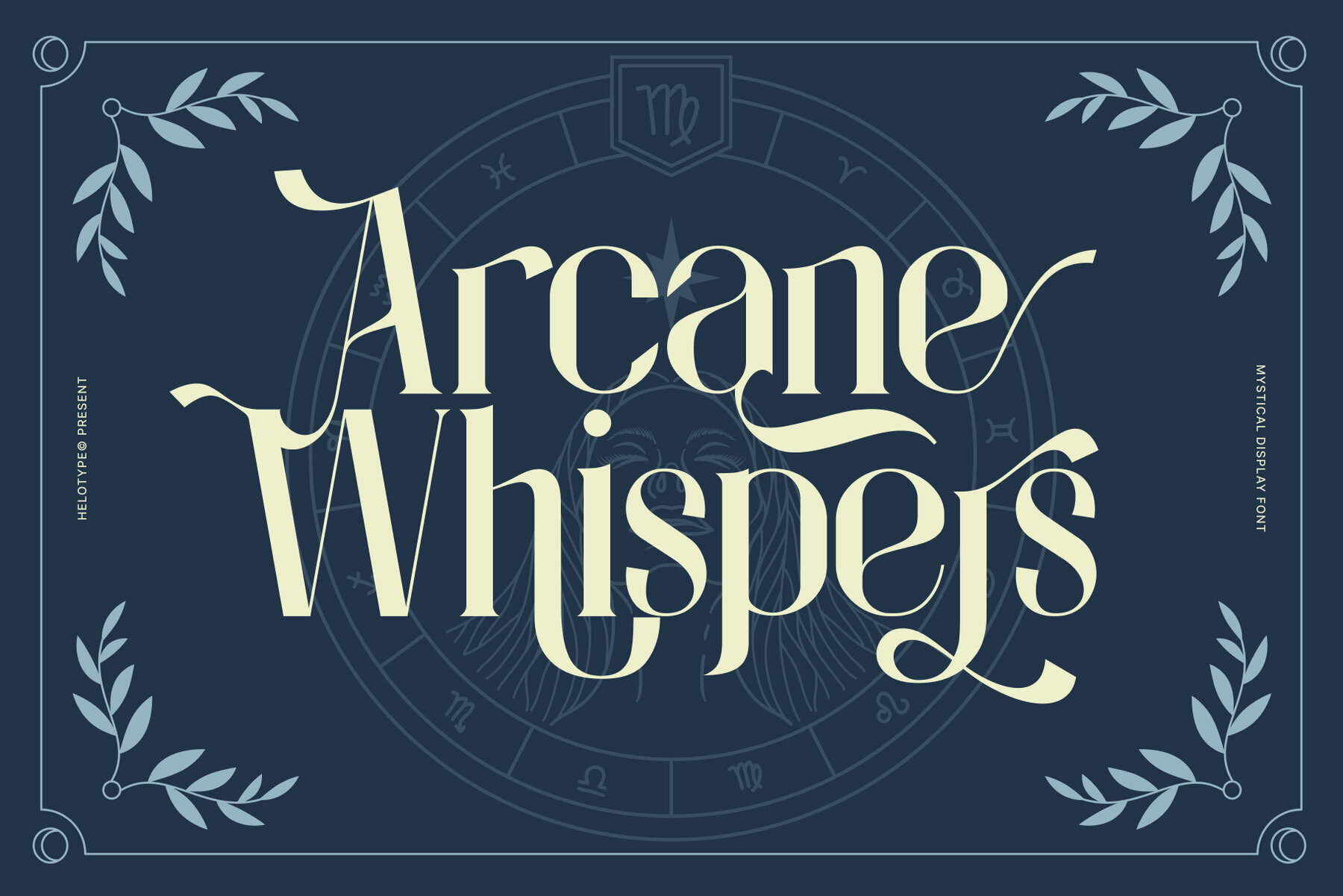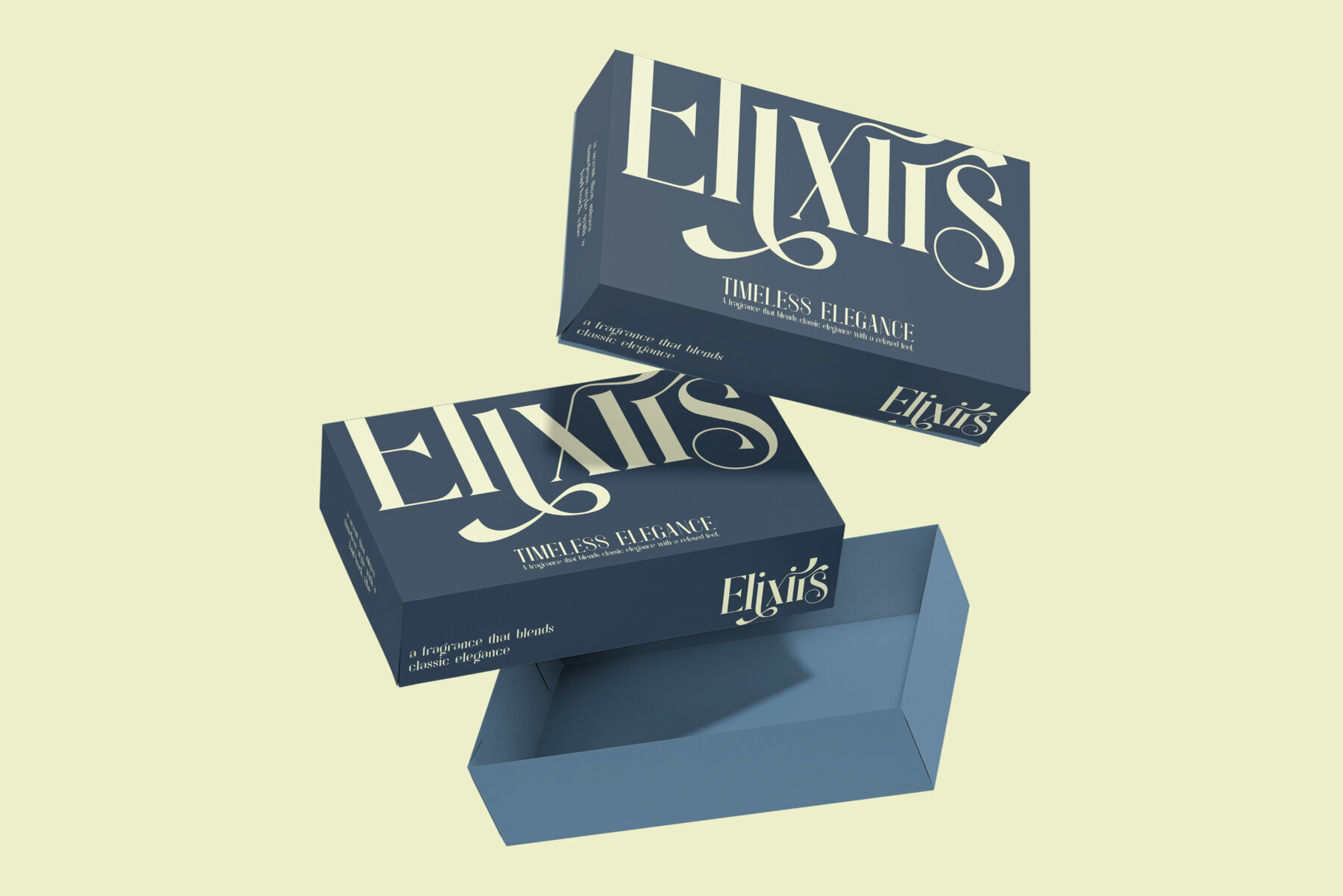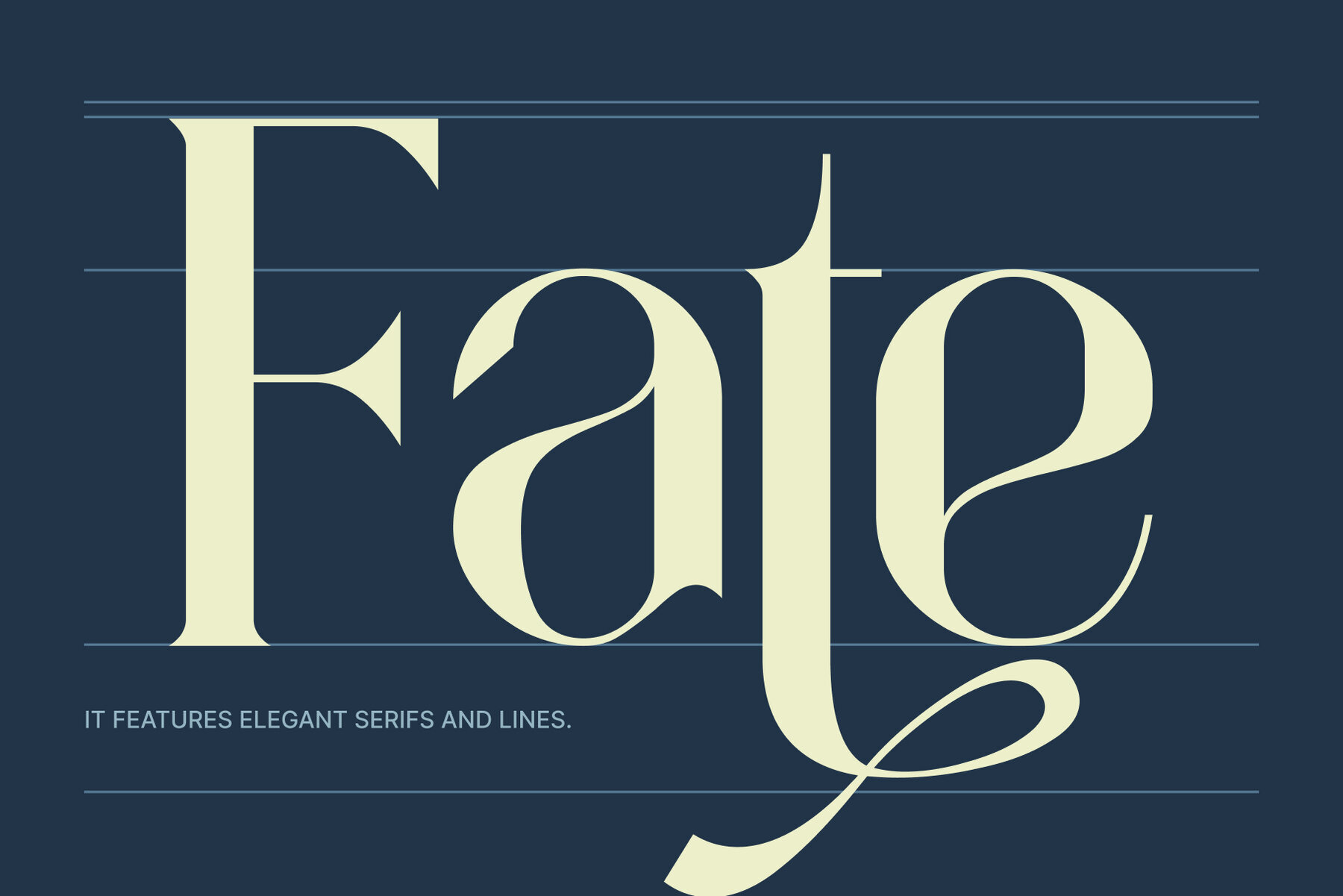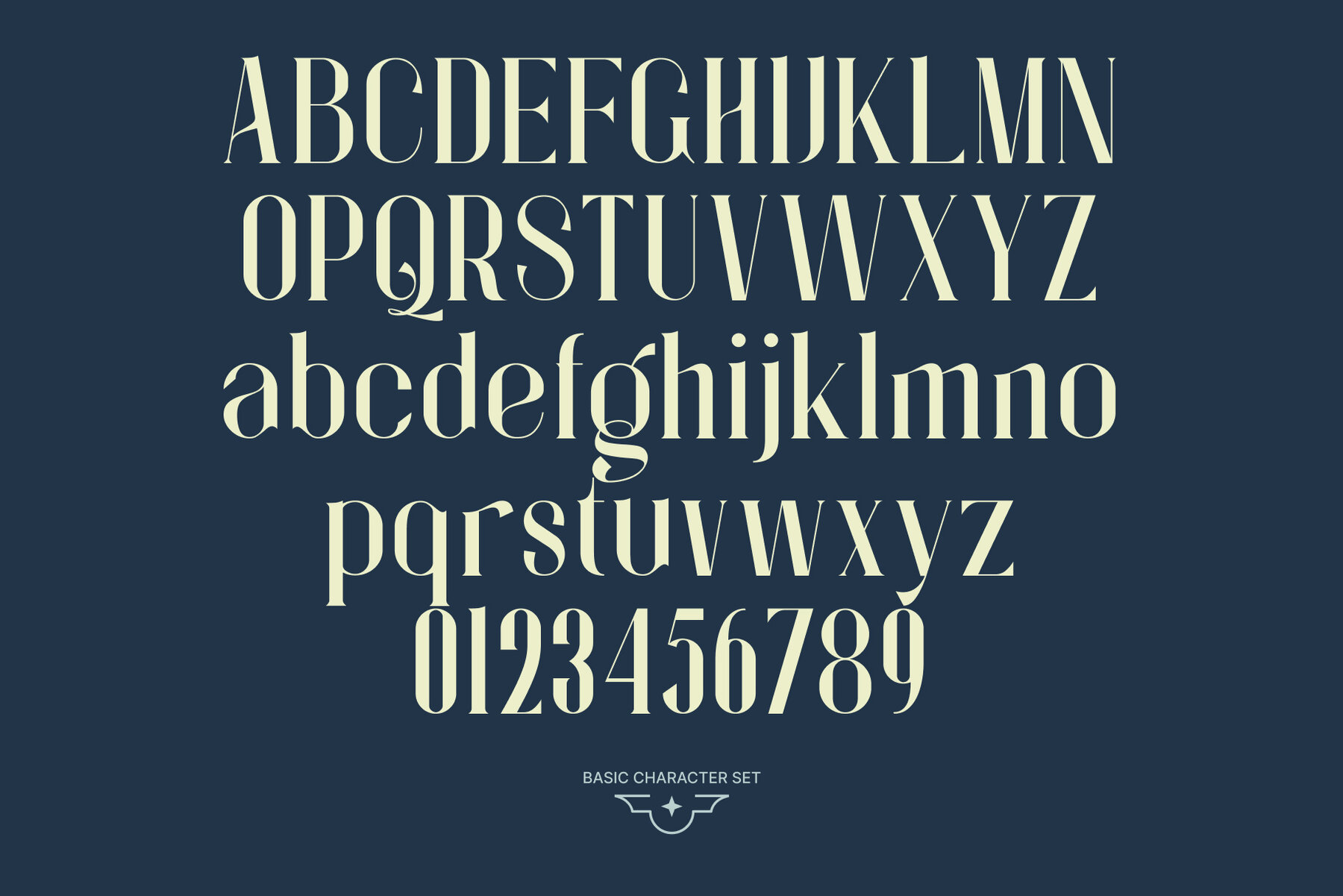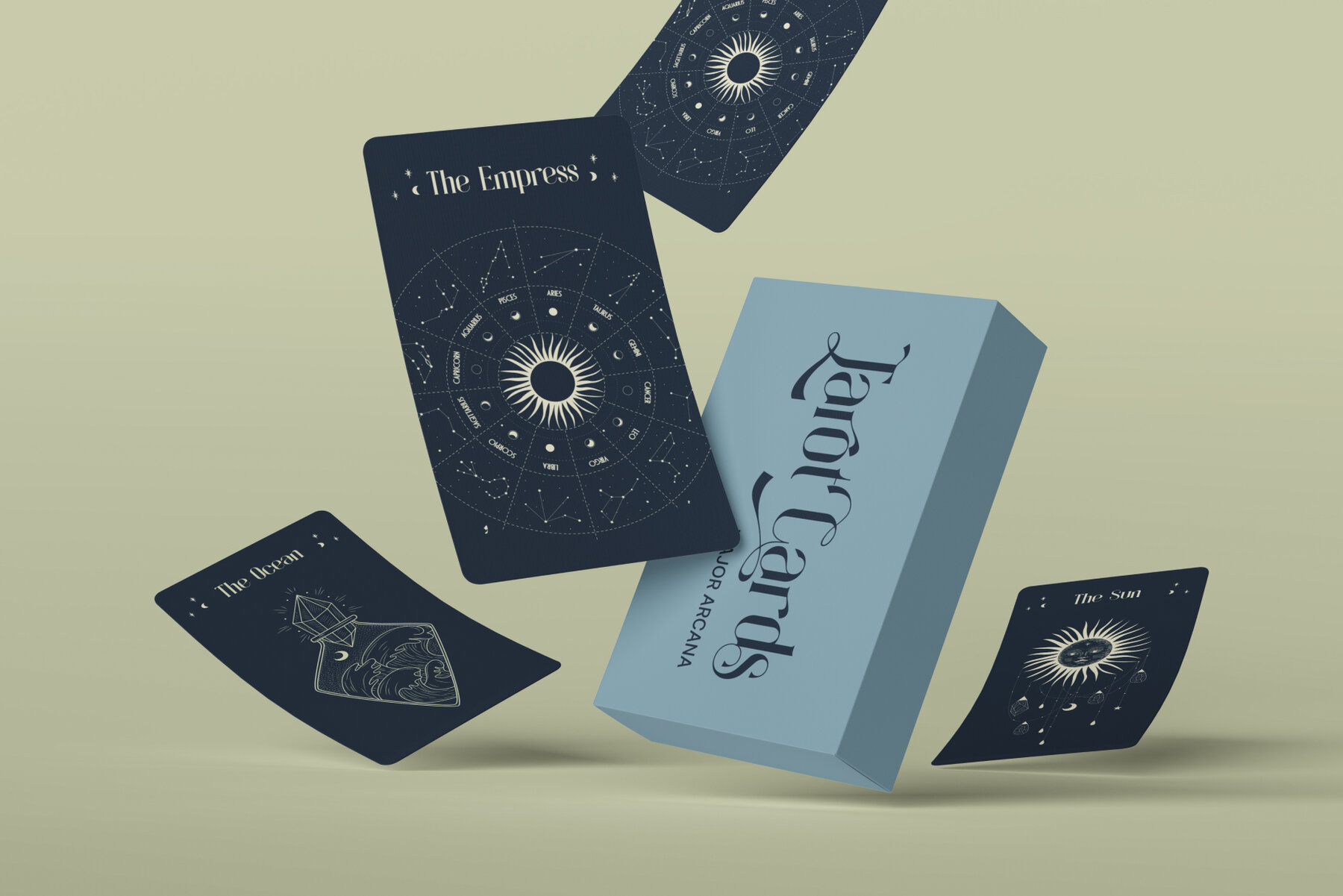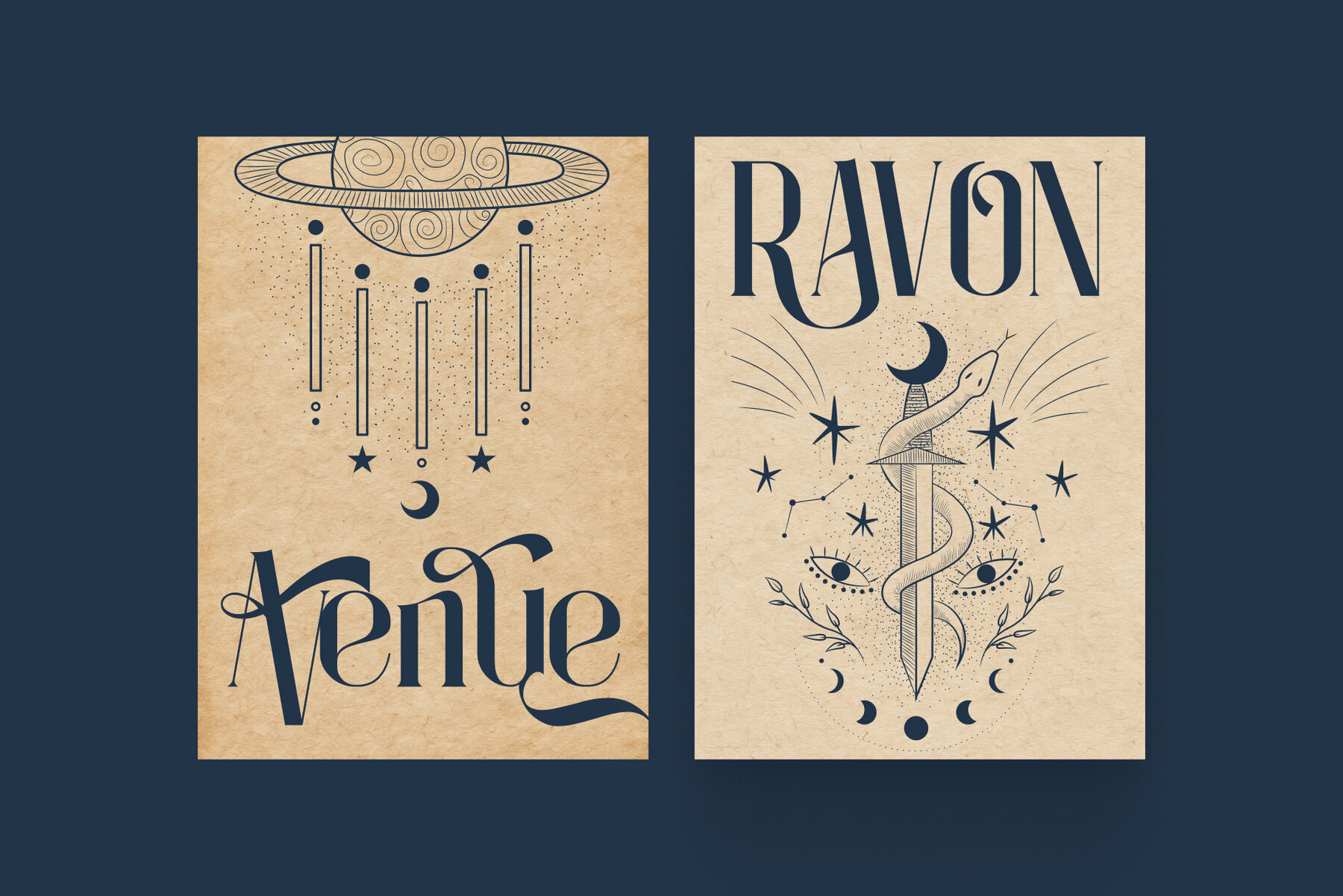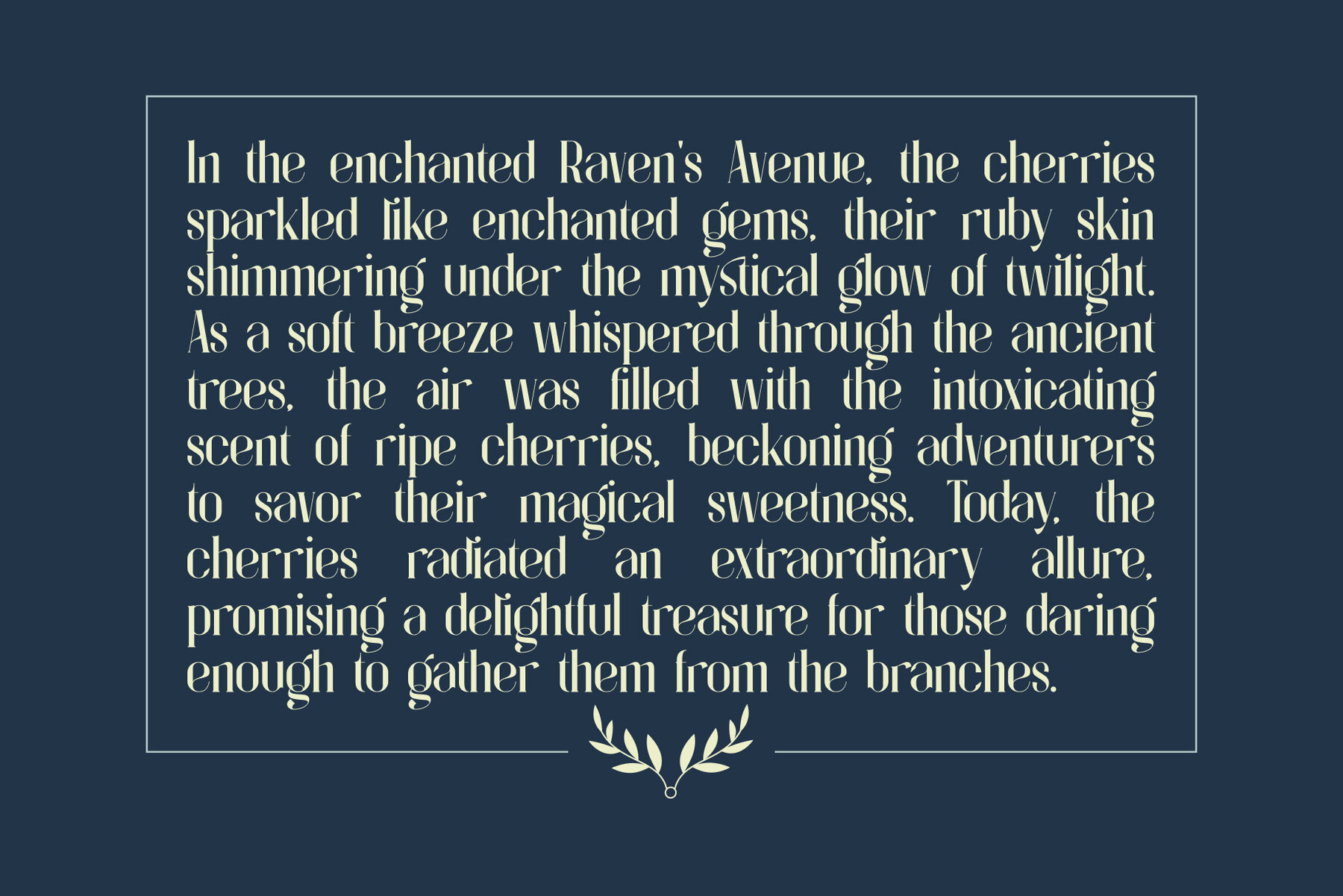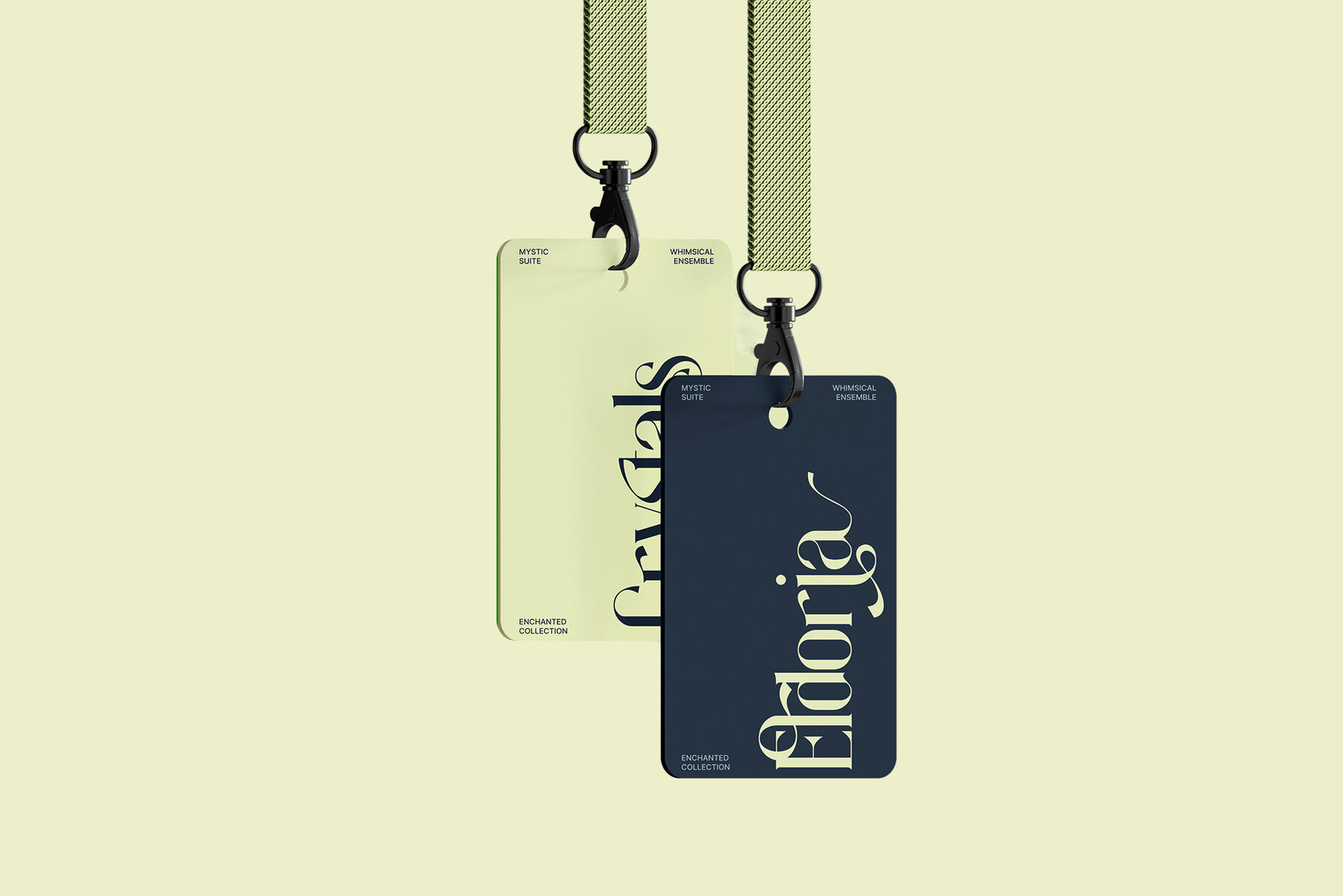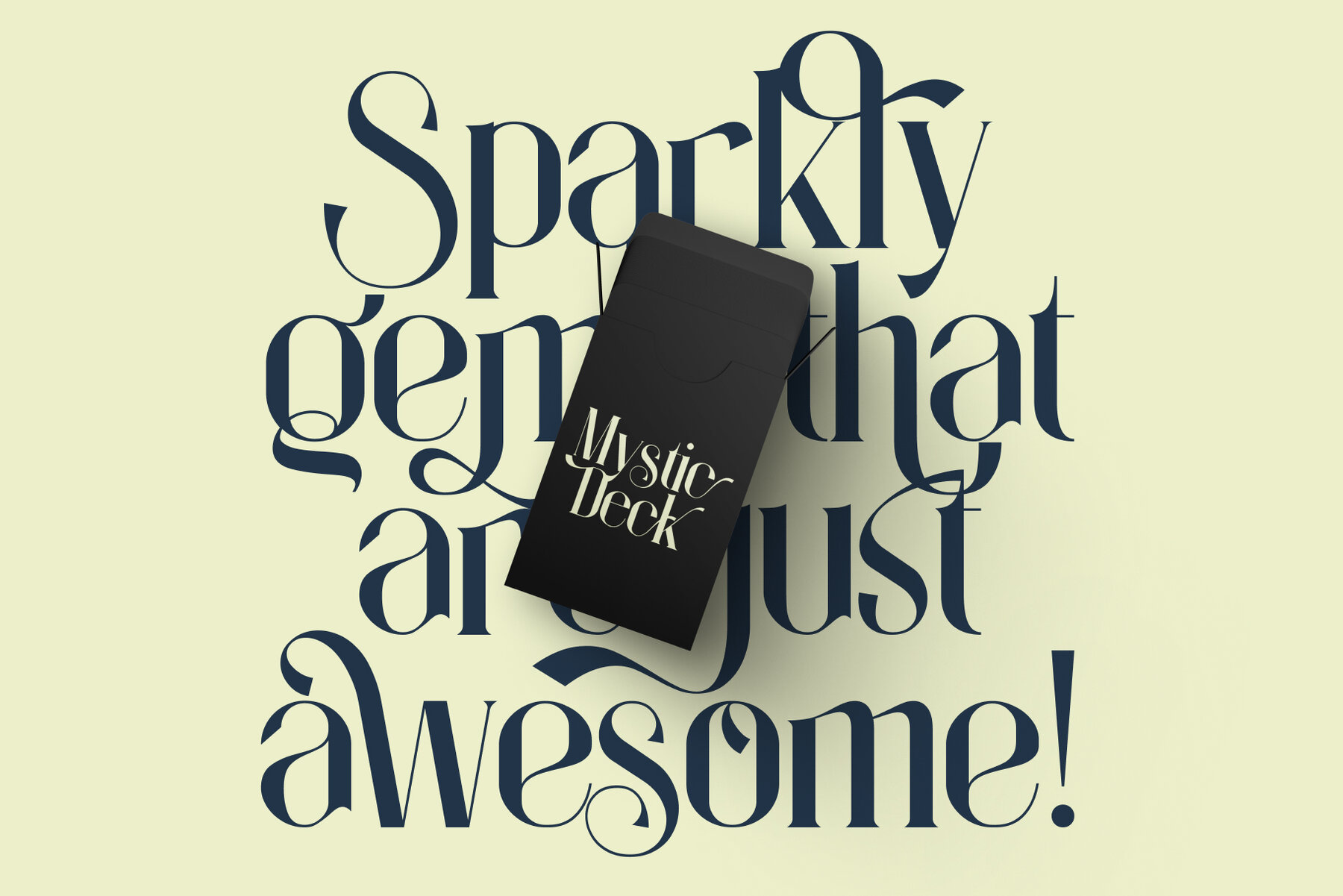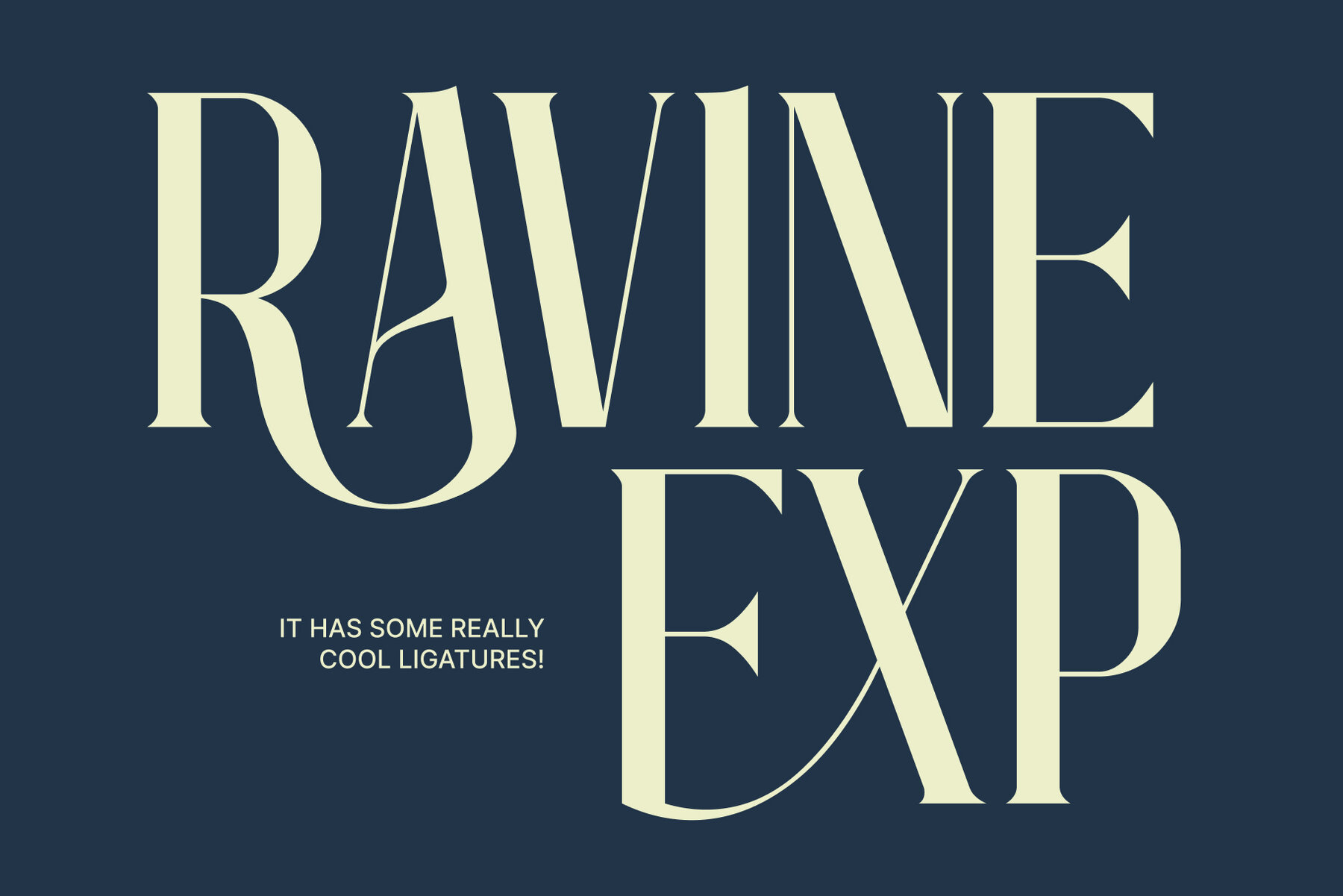
Arcane Whispers Font
Arcane Whispers Regular
Delve into the enchantment of Arcane Whispers, a unique display font that fuses classic elegance with a mystical allure. Draw inspiration from timeless serif styles, enhanced with magical swashes and intricate ligatures. This font is perfect for projects seeking a touch of wonder and sophistication. Whether you're designing branding elements, invitations, book covers, or product packaging, let Arcane Whispers evoke ancient secrets, celestial beauty, and whimsical charm in your creations.Arcane Whispers: A Captivating Display Font